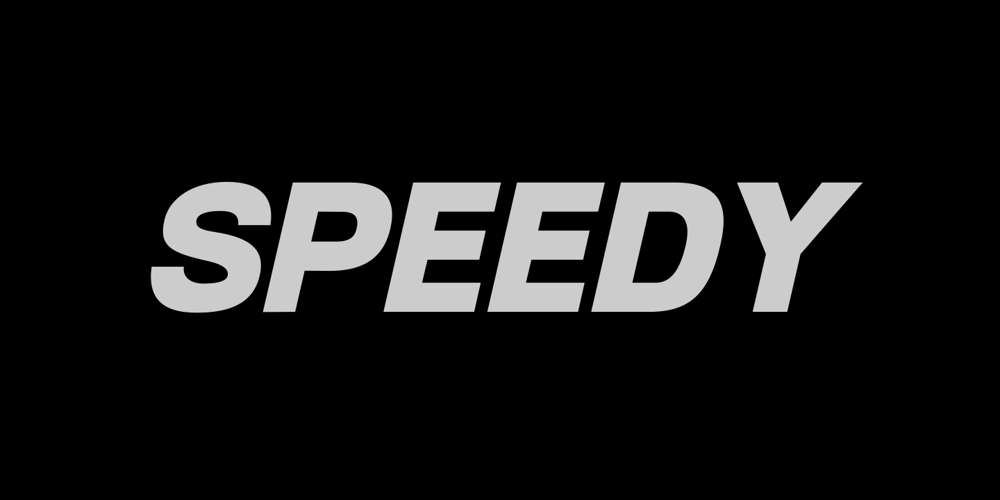
Speedy Font Family was designed by Arief Rochman and published by 4RM Font. Speedy contains 1 styles and family package options. Inspired by high speed, this font is made in only black in an italic style, giving this font an aura full of energy. Speedy fonts are suitable for use in futuristic themed graphic designs